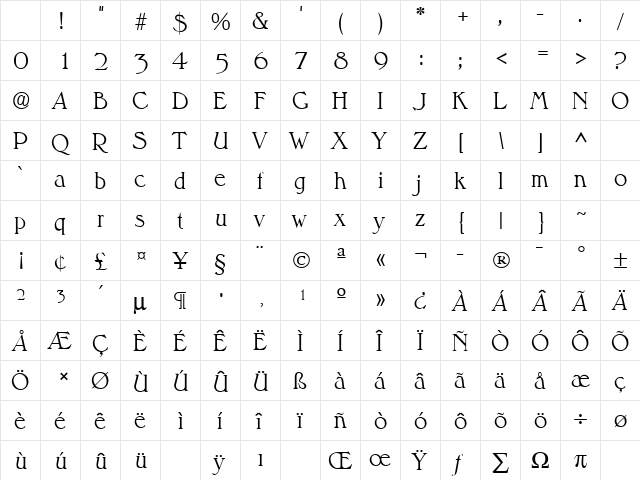
Millenium SF Regular
Millenium SF is a composed and adaptable typeface that performs quietly and consistently across a wide range of design contexts.